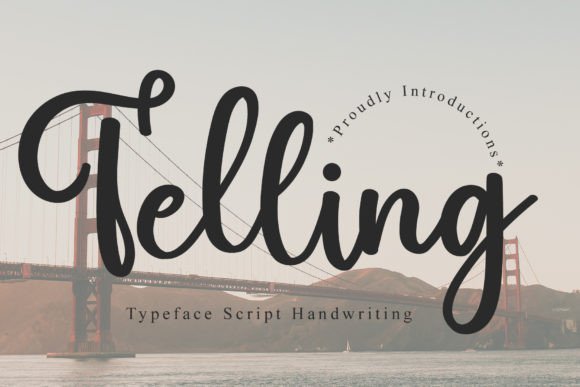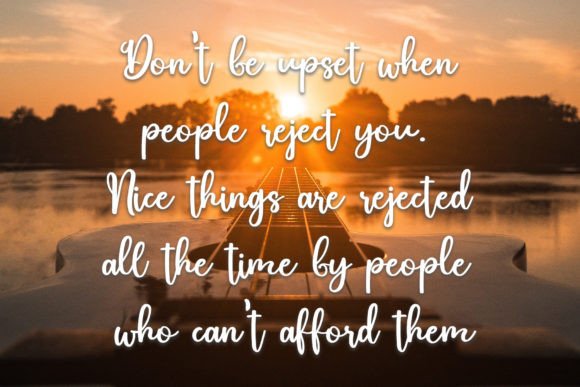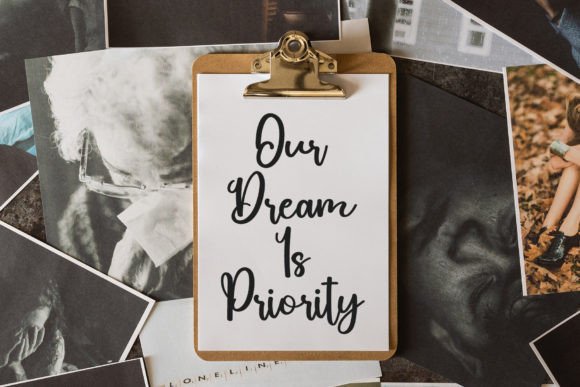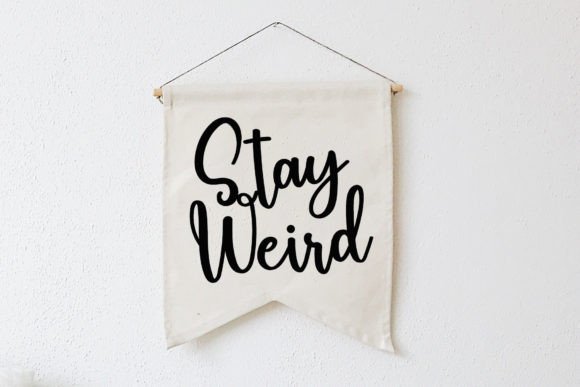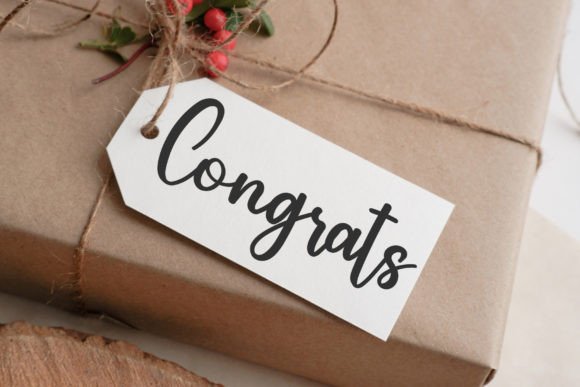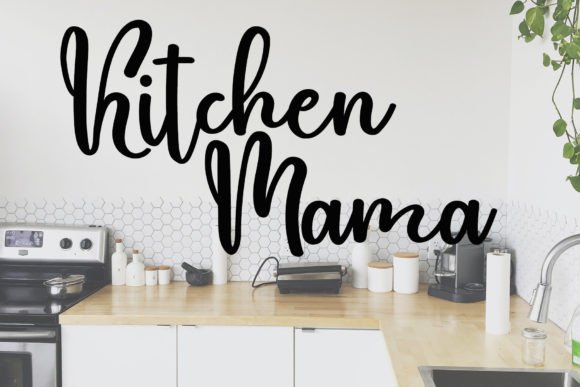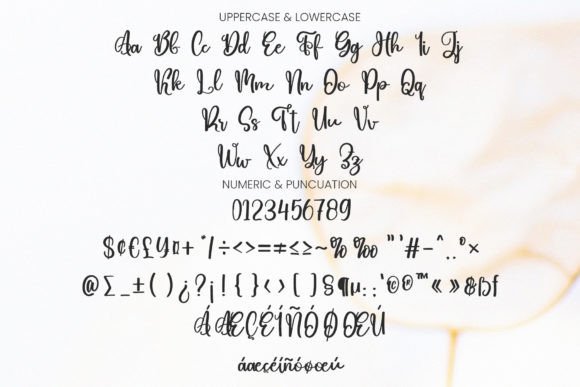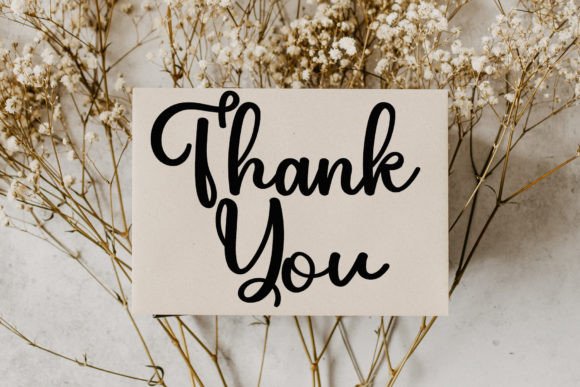
Telling Font
About Telling Font
Introducing Telling, a robust font designed to command attention and highlight any project that demands a bold feel. This powerful typeface is crafted to add a vibrant touch, especially suitable for sport-inspired designs. Telling is versatile and well-suited for sports design, team branding, jersey graphics, league promotions, movie titles, documentaries, films, logos, posters, games, book covers, headlines, titles, and various other projects that require a bold and impactful aesthetic.
The strength of Telling lies in its robust and powerful design, making it an excellent choice for projects that need to convey energy, dynamism, and boldness. Whether used in digital designs or print materials, this font is crafted to make a visual impact.
In sports design and team branding, Telling stands out as a bold and dynamic option. Its impactful design contributes to a strong and memorable team identity, making it suitable for a variety of sports-related applications.
Jersey graphics and league promotions benefit from Telling’s vibrant touch. The font adds a sense of energy and excitement, enhancing the overall visual appeal of sports-related materials.
For movie titles, documentaries, and film projects, Telling offers a bold and attention-grabbing choice. The font’s robust design ensures that it stands out on screen and leaves a lasting impression.
In logos, posters, and game-related designs, Telling’s bold aesthetic enhances the overall visual impact. The font is crafted to bring a vibrant and powerful feel to your creative projects.
Telling is designed to be versatile, making it suitable for a range of design applications. Whether you’re working on digital designs or print materials, this font is crafted to bring a bold and impactful vibe to your projects.
In conclusion, Telling is a robust font that adds a vibrant touch to your designs. Choose Telling for sports design, team branding, jersey graphics, league promotions, movie titles, posters, and more, creating visually appealing and impactful outcomes across a variety of creative applications.